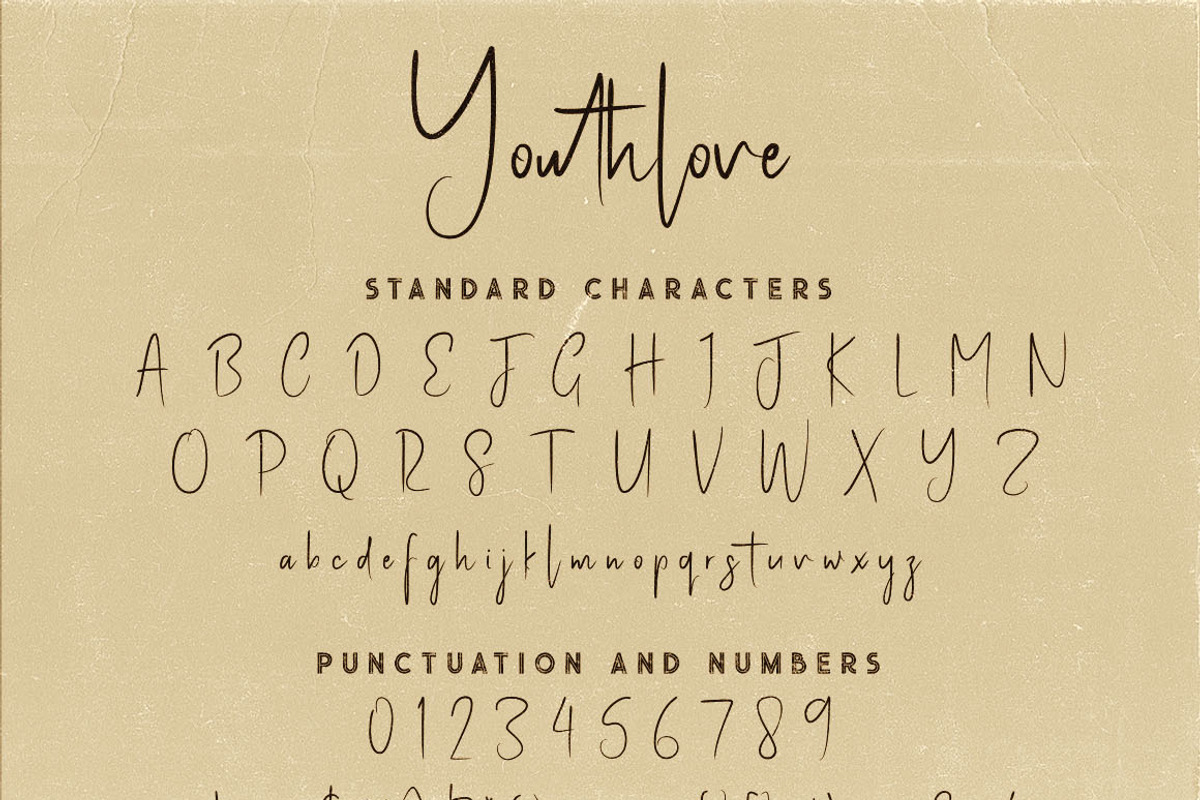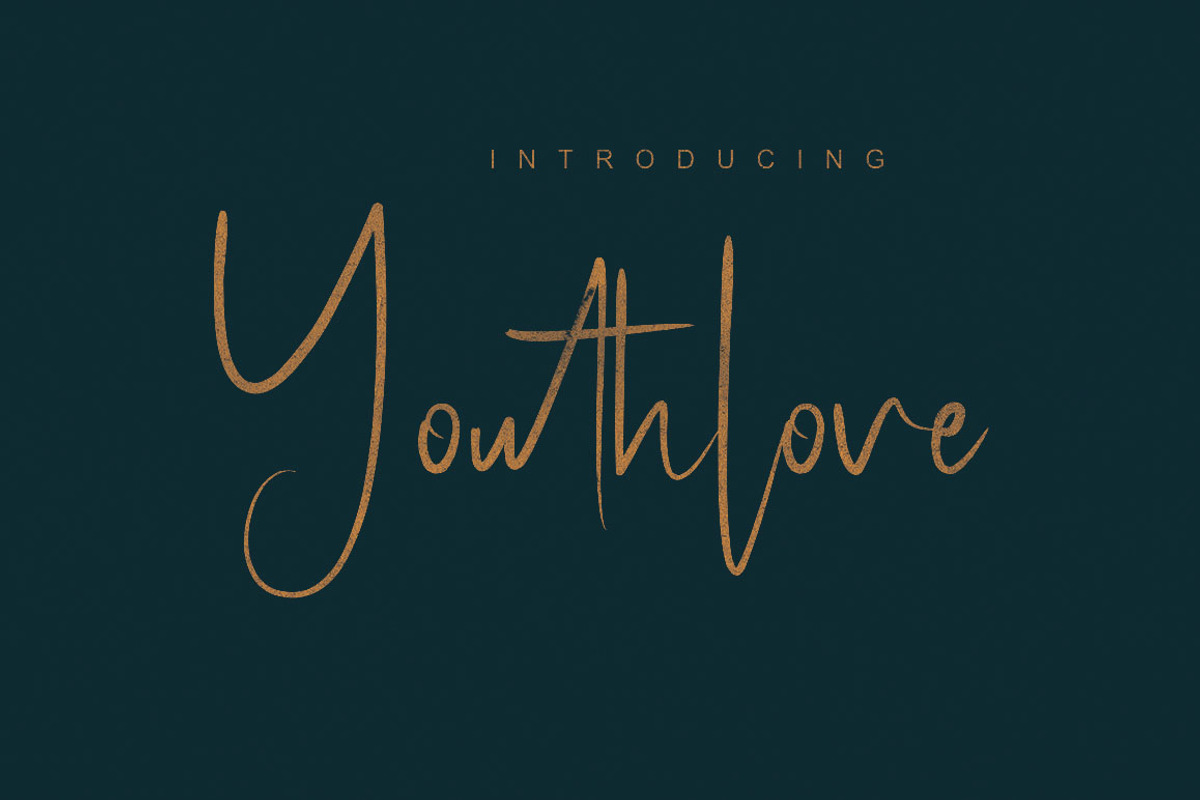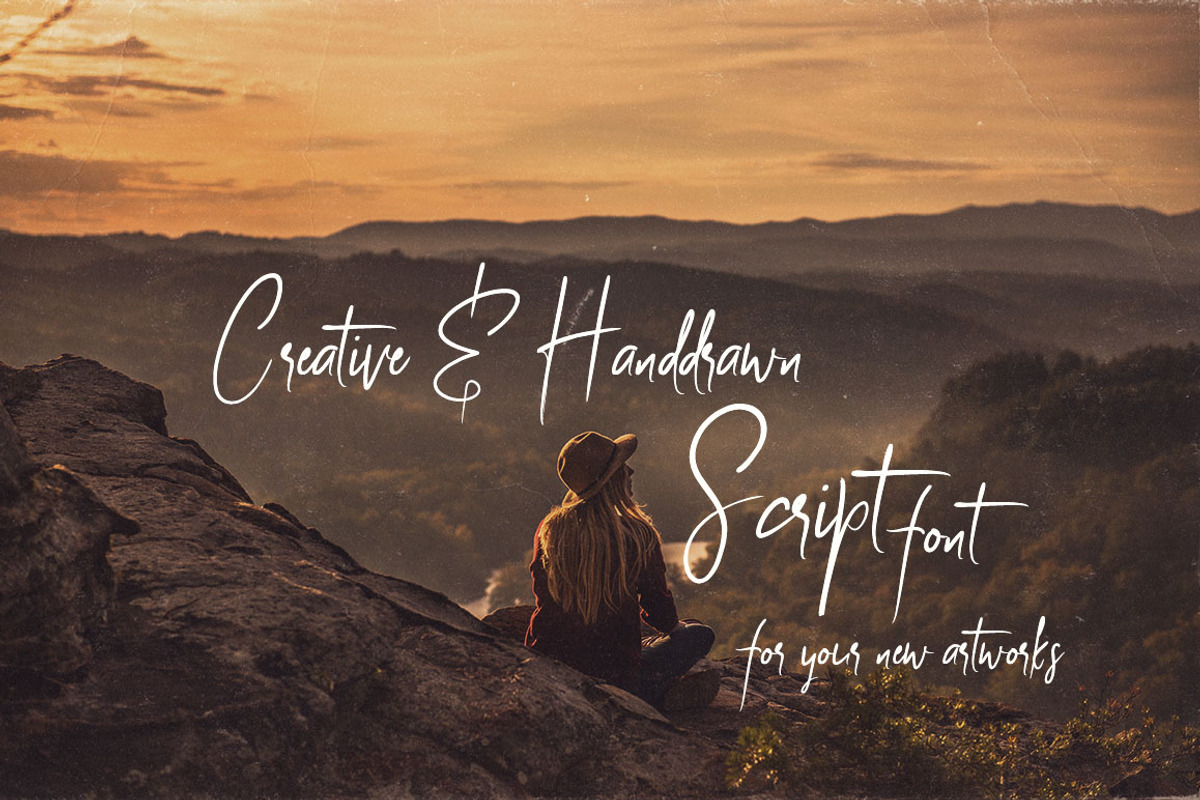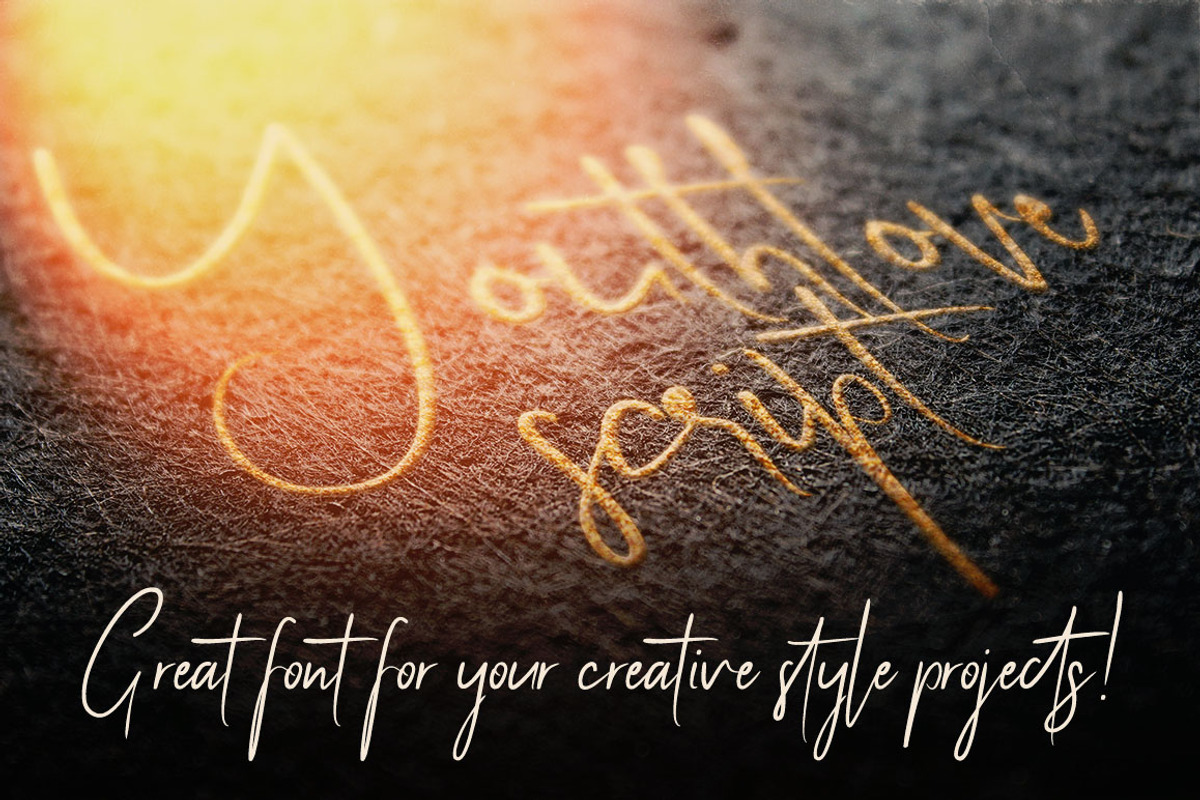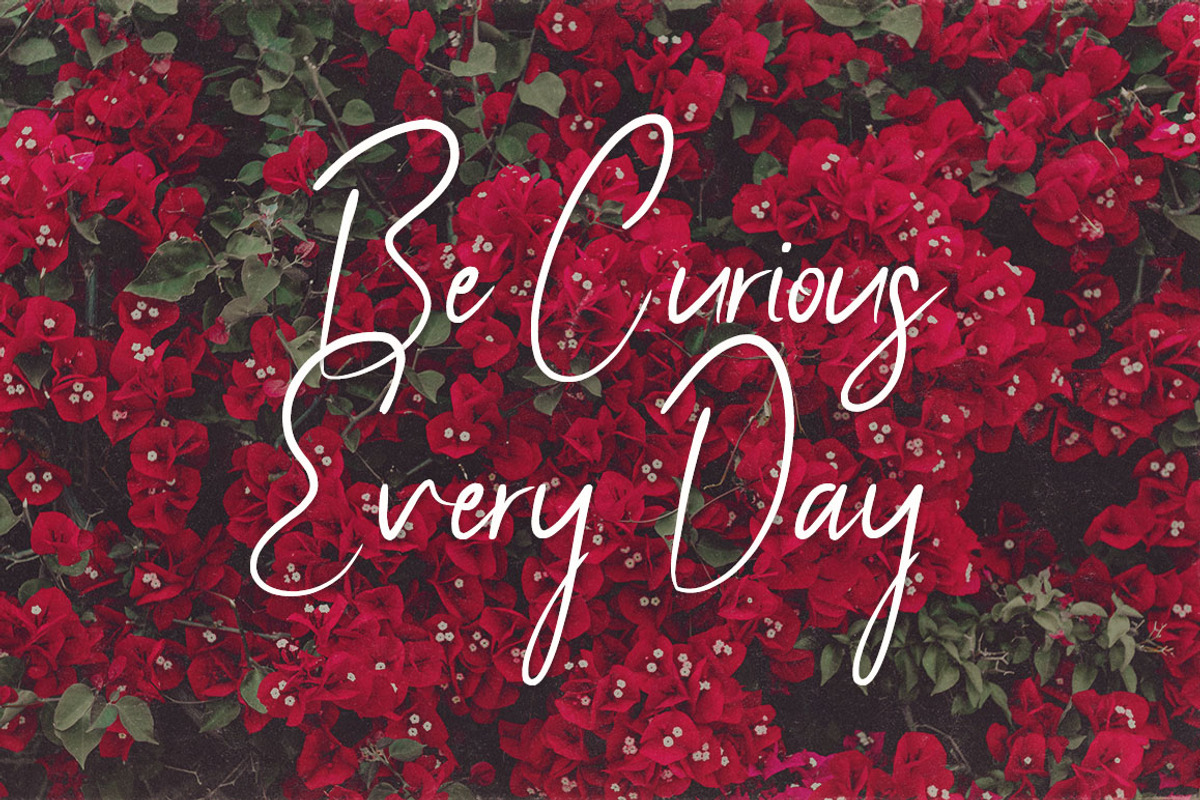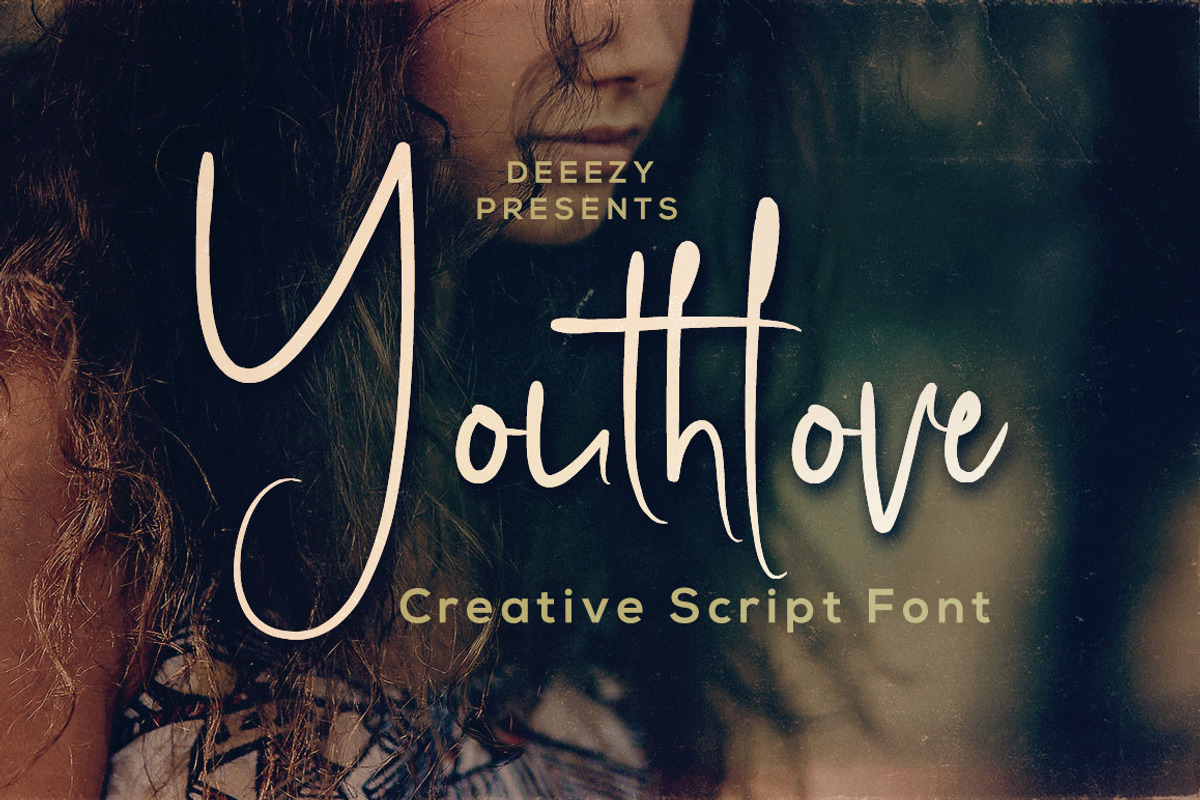
Youthlove Script Font
Creative and handwritten style script font for your new projects. With multi language support and lot of stylistic alternates.
- With multi language support and lot of stylistic alternates.
Why Youthlove Script Font is worth a look
Youthlove Script Font by Deeezy fits naturally into Branding, posters, packaging, typography.